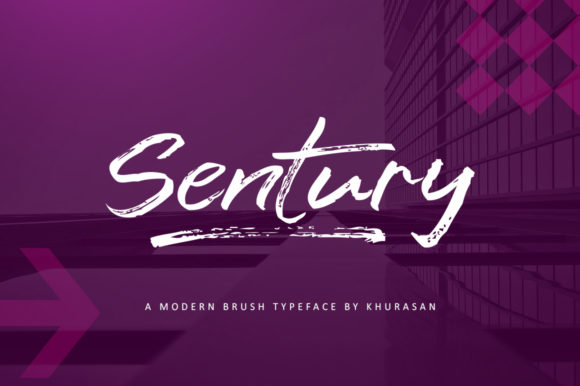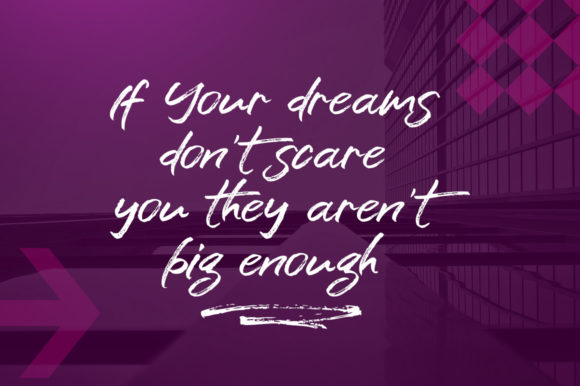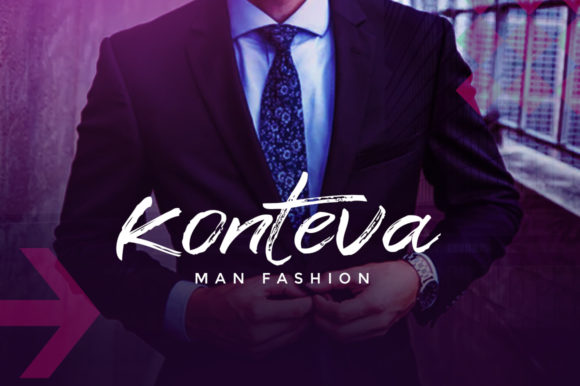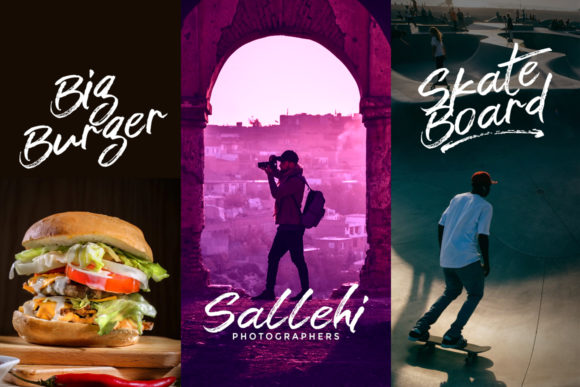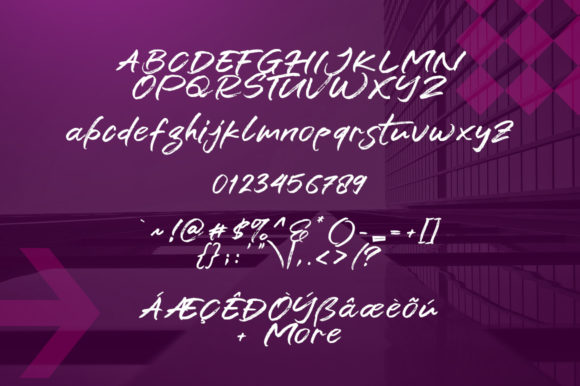
Sentury Font
About Sentury Font
Sentury is a fresh handwritten brush font with an elegant and vintage feel. It will add a retro touch to any design project.